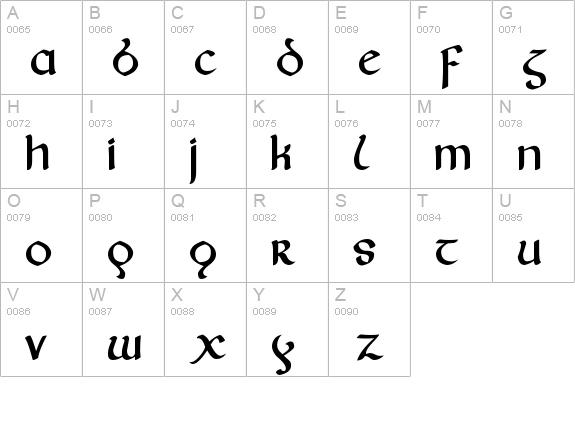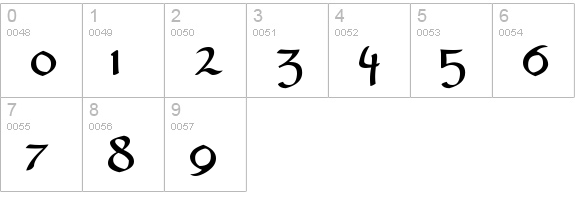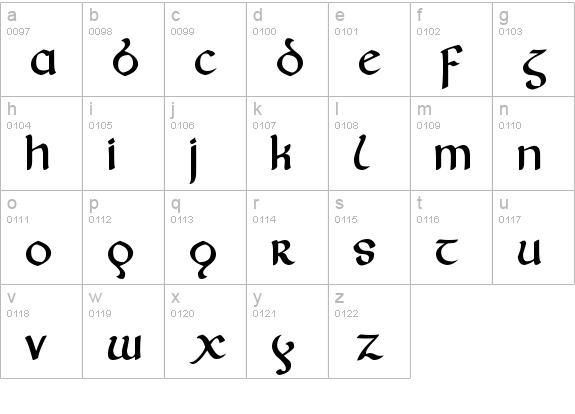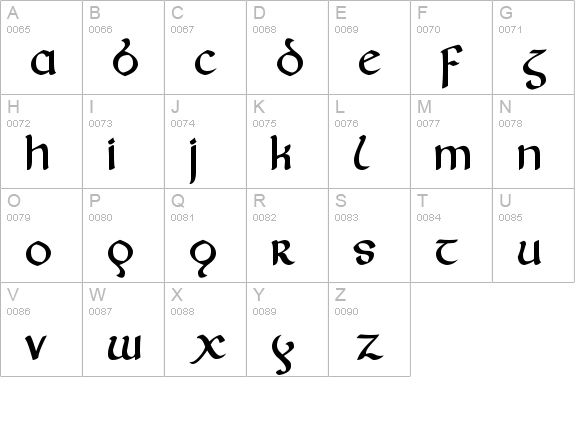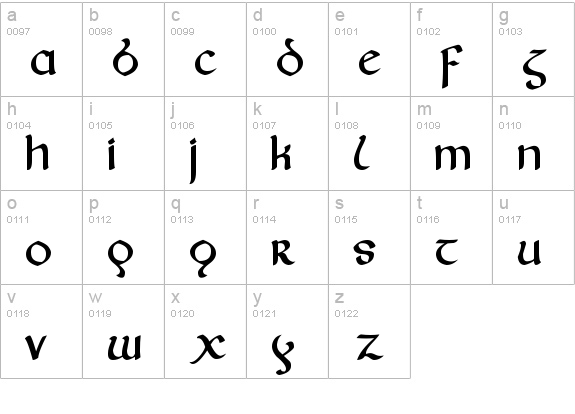
Introducing Fairies font, a whimsical and enchanting typeface that will transport your designs to a magical realm. With delicate curves and graceful strokes, Fairies font brings a touch of fairy dust to any project. Perfect for invitations, greeting cards, and other creative endeavors, this font captures the essence of ethereal beauty.